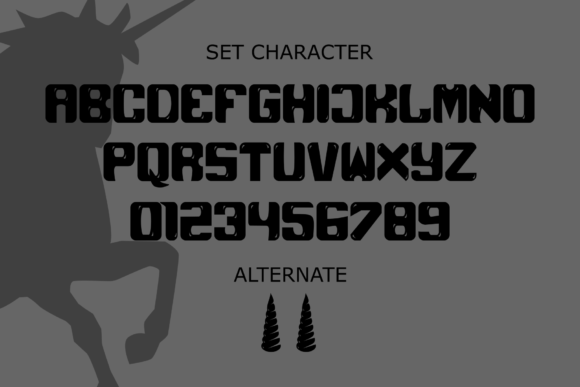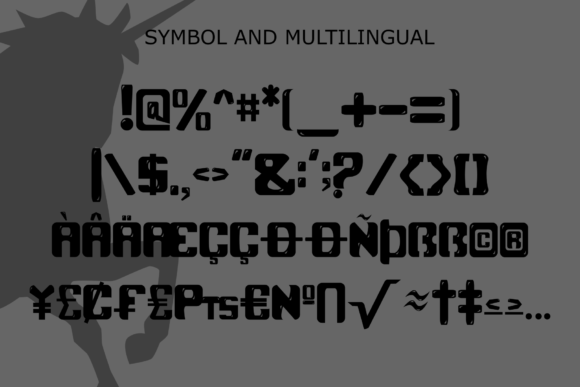
The Magical World of Black Unicorn Font
Have you ever been in the middle of a design project, and suddenly, you’re stuck on finding the perfect font? I recall a particularly frustrating experience while working on a branding project for a children’s toy company. My client wanted a font that was both playful and sophisticated, but I just couldn’t seem to find the right fit. That was until I stumbled upon the Black Unicorn Font. ✨
A Game-Changing Display Font
Black Unicorn Font is a masterfully designed display font that has become a staple in my design toolkit. Its bold yet sophisticated look makes it perfect for a wide range of applications, from logos and branding to packaging design and more. The chunky and extended characters of this font are particularly adept at grabbing attention and conveying a sense of luxury and elegance.
• ✨ Unique Character: The Black Unicorn Font has a distinctive look that sets it apart from other fonts on the market.
• ✅ High Versatility: This font can be used in a variety of design projects, from branding and advertising to packaging and more.
• 💯 Ease of Use: The font is easy to read and works well in both digital and print formats.
• 🎨 Customization Options: The font comes with a range of OpenType features, glyphs, and stylistic alternates that allow for endless customization.
While the Black Unicorn Font is an excellent choice for many design projects, there are a few things to keep in mind: ⚠️
• 🤔 Limited Use in Body Text: Due to its bold and chunky design, this font may not be the best choice for body text or long-form content.
• ⚠️ Requires Careful Kerning: As with any font, careful kerning is essential to ensure that the text looks professional and polished.
The Designer Inspiration Behind Black Unicorn Font
The Black Unicorn Font was designed with the goal of creating a unique and eye-catching display font that would stand out in any design project. The designer, who wishes to remain anonymous, drew inspiration from mythology and folklore, as well as modern design trends. The result is a font that is both bold and sophisticated, with a touch of magic and wonder.
Font Name Black Unicorn Font
Author Bold Point
Q: What is the Black Unicorn Font?
A: The Black Unicorn Font is a masterfully designed display font with a bold and sophisticated look.
Q: What can I use the Black Unicorn Font for?
A: The Black Unicorn Font can be used for a wide range of design projects, including logos, branding, packaging design, and more.
Q: Is the Black Unicorn Font easy to read?
A: Yes, the Black Unicorn Font is easy to read, even at smaller sizes.